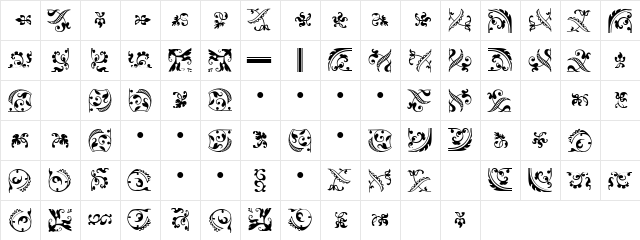
Arabesque Ornaments Normal
Design Context for Arabesque Ornaments Typeface
Arabesque Ornaments brings ornamental detail and strong personality to headlines and identities, where visual impact matters more than quiet functionality.
Font Pairing: Pair with a clean neutral sans-serif for body copy to let Arabesque Ornaments's character lead without overwhelming the composition.
Pro Tip: Use Arabesque Ornaments exclusively at display sizes — it was designed to be seen, not read at length. Let a neutral companion handle body copy.